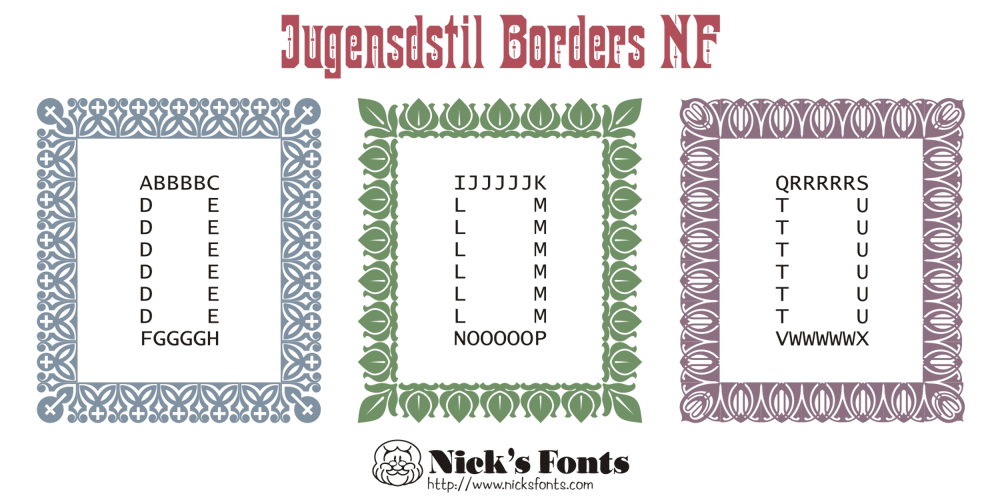
Jugendstil Borders NF Font Family was designed by Nick Curtis and published by Nick’s Fonts. Jugendstil Borders NF contains 1 styles and family package options. Here’s a collection of Art-Noueveau-era border elements, gleaned from the pages of various German type foundry catalogs from the first decade of the twentieth century. Refer to the accompanying PDF guide for instructions on constructing twelve different, distinctive and elegant border sets.